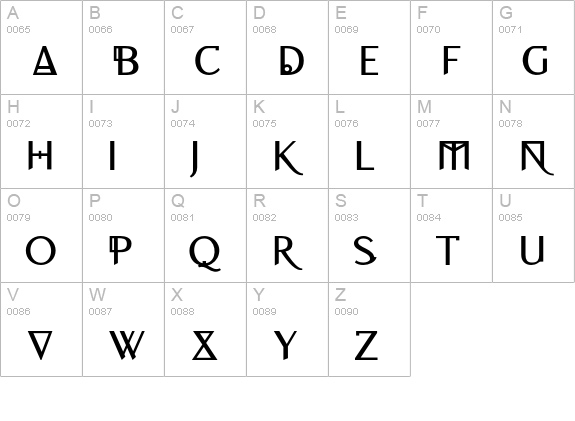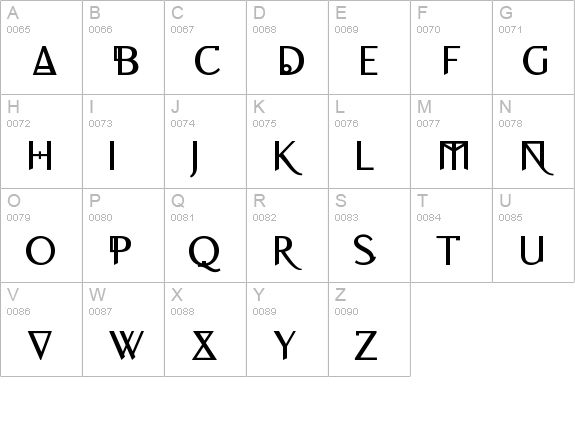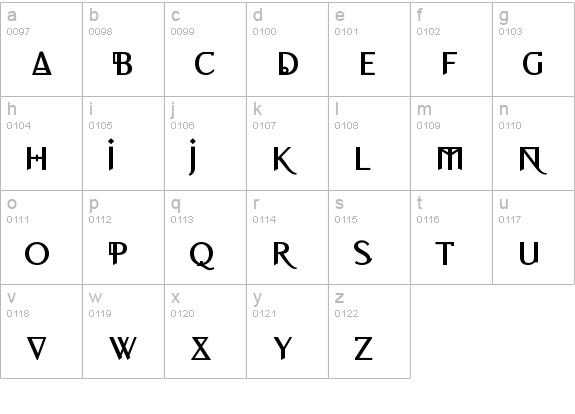
REQUIEM-SIMPLEX21 Font Details
REQUIEM-SIMPLEX21 is a stunningly elegant font that effortlessly blends simplicity with sophistication. It exudes a timeless beauty that is perfect for any creative project, whether it be for branding, invitations, or editorial designs. With its clean lines and graceful curves, REQUIEM-SIMPLEX21 adds a touch of refinement to any composition. Its versatile nature makes it suitable for both headline and body text, allowing for seamless readability across various mediums. One of the most remarkable features of REQUIEM-SIMPLEX21 is that it is freely available to download at FontsMarket.com. This means that designers and enthusiasts alike can access this exquisite font without any cost. Its accessibility ensures that creativity knows no bounds, allowing individuals from all walks of life to elevate their design projects to new heights. Whether you are a professional designer seeking a font that exudes sophistication or an amateur enthusiast ready to explore the world of typography, REQUIEM-SIMPLEX21 is the perfect choice. Its timeless elegance and the fact that it is freely available for download make it an invaluable addition to any font library. Experience the beauty and versatility of REQUIEM-SIMPLEX21 today and unlock a world of design possibilities.